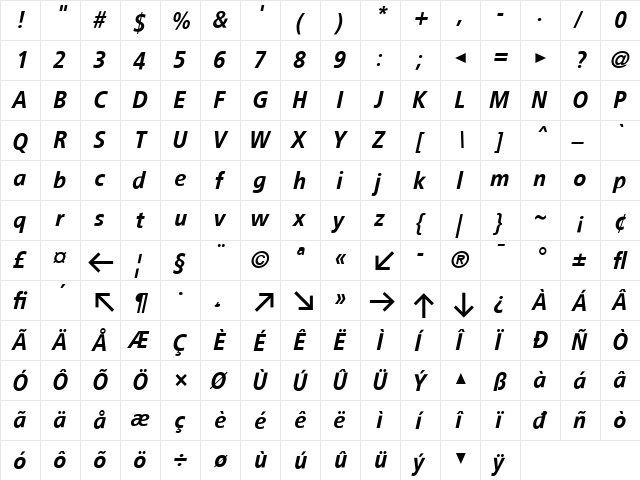
TransitBack Italic Font Preview
TransitBack Italic
TransitBack Italic Font Details
Design Context for TransitBack Typeface
TransitBack offers clean, dependable letterforms without strong stylistic allegiance, making it a practical choice for designers who need flexibility. The slanted form adds forward momentum and visual energy.
Pro Tip: Use TransitBack for emphasis, pull quotes, and subheadings where its slanted energy can add rhythm to the layout.